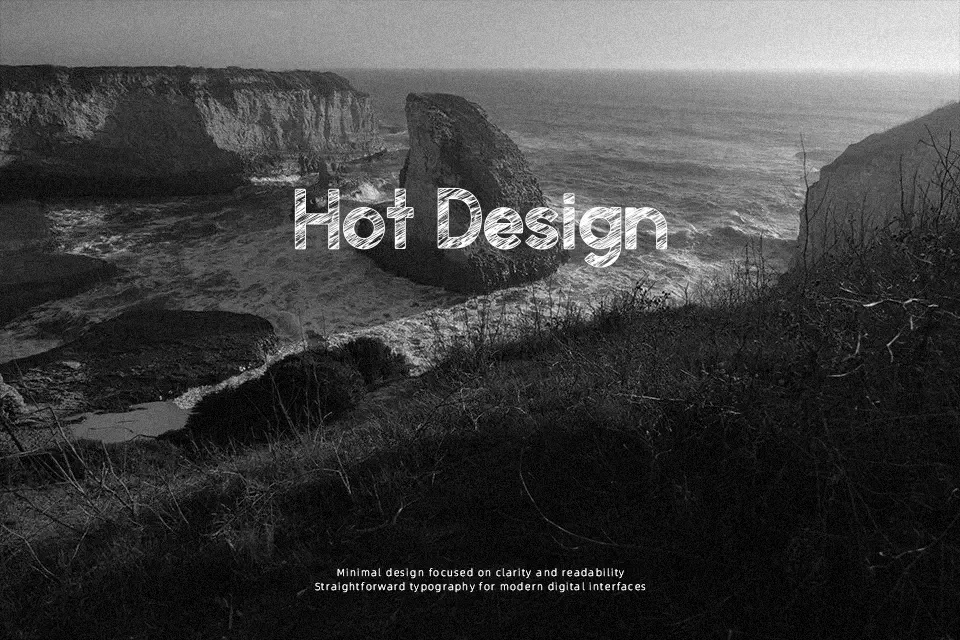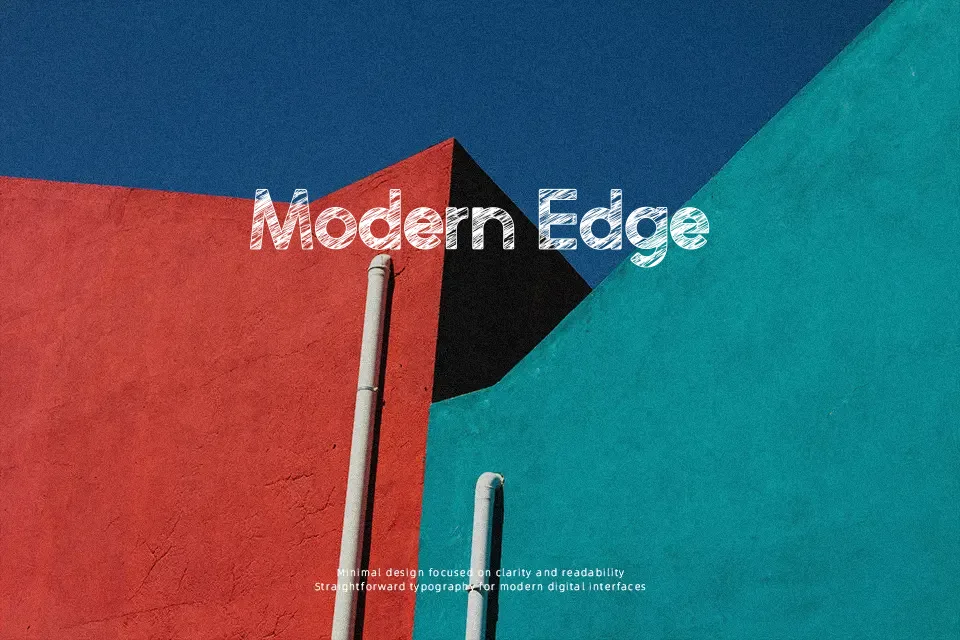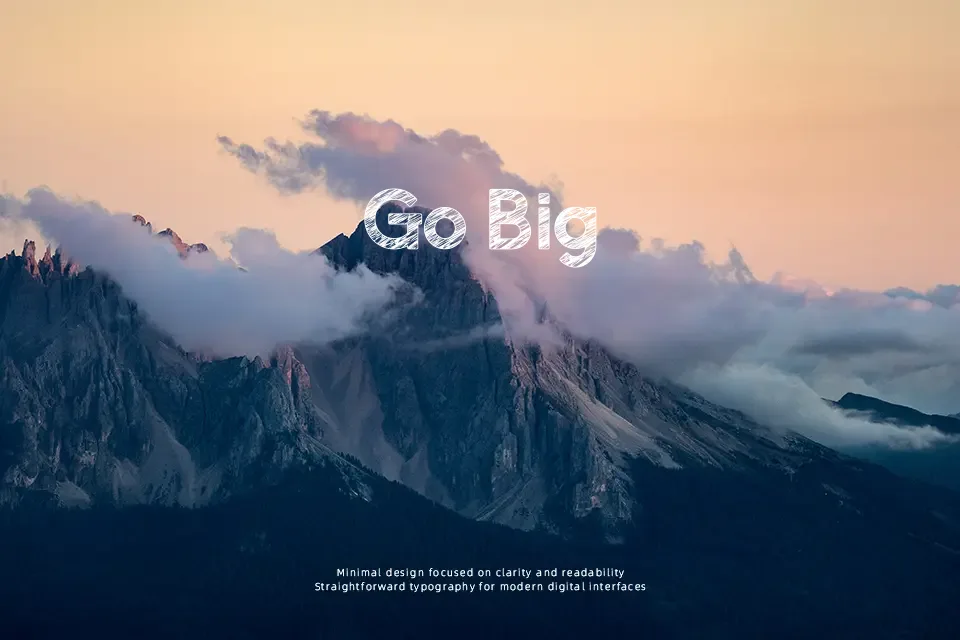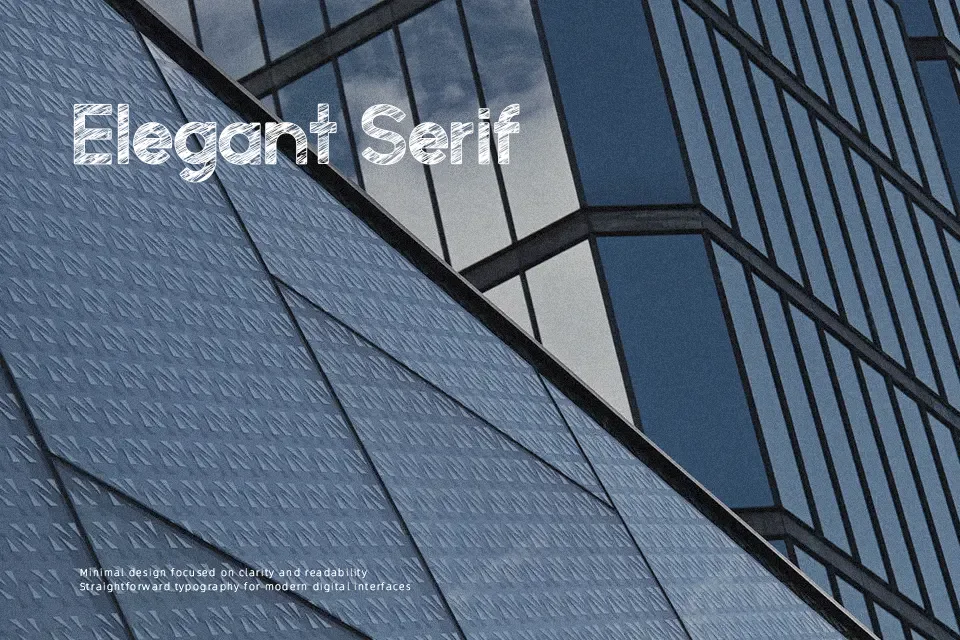
Perfectly Scratchy Font
Perfectly Scratchy Font uses irregular handwritten letterforms with visibly worn, textured strokes and a loose, energetic rhythm. Its mostly upright characters combine rounded curves with uneven edges, giving short words a casual roughness rather than a polished finish. The spacing appears reasonably open, while the varied texture makes individual letters more noticeable in large settings. It works well for bold poster copy, informal merchandise, and graphic-led headlines. The distressed surface helps the typeface feel distinctive at display sizes, but its small details can become distracting in compact text or extended reading.
Best For: music event posters,apparel graphics,social media headlines,casual product packaging
Perfect for headline, music, and packaging, with a artistic and decorative style.